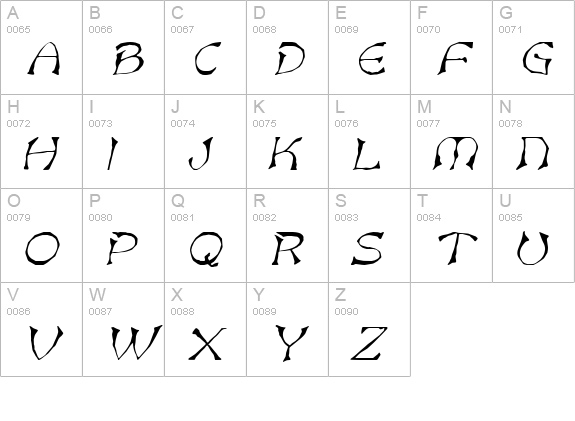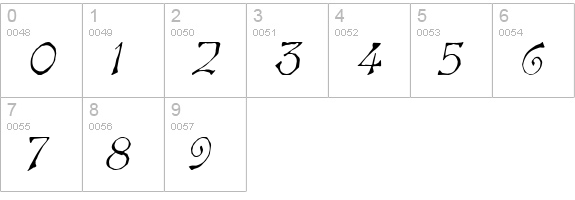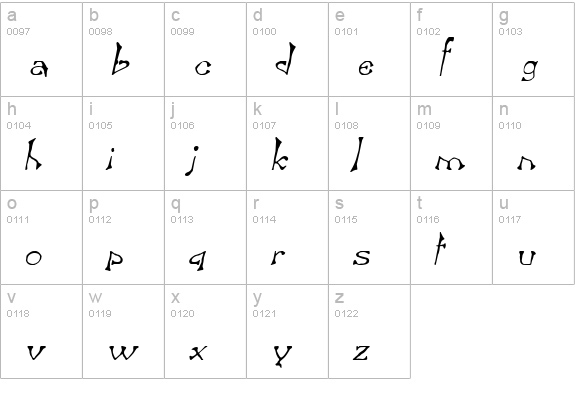
Bart Italic is a distinctive, italic variant in the Bart typeface family \xE2\x80\x94 well suited to design and typography projects.
The Bart Italic font is a modern and stylish typeface that exudes elegance and sophistication. With its sleek and slanted design, this font is perfect for adding a touch of flair to any project. Whether you're creating a logo, designing a poster, or crafting a stylish invitation, Bart Italic is sure to make a statement. Best of all, Bart Italic is completely free to download at FontsMarket.com. So you can add this beautiful font to your collection without any cost. Don't miss out on the opportunity to enhance your designs with the sleek and stylish Bart Italic font. Download it today and let your creativity shine!